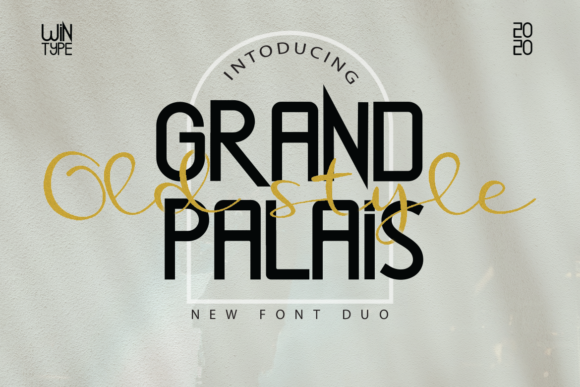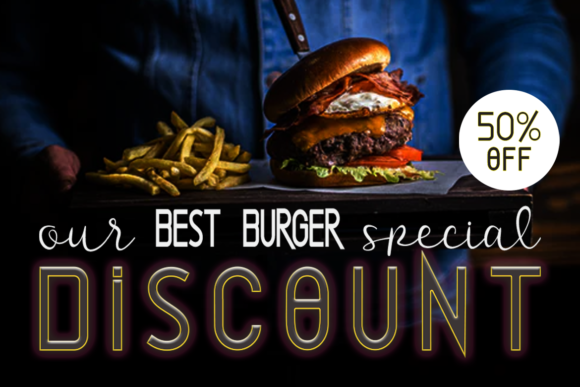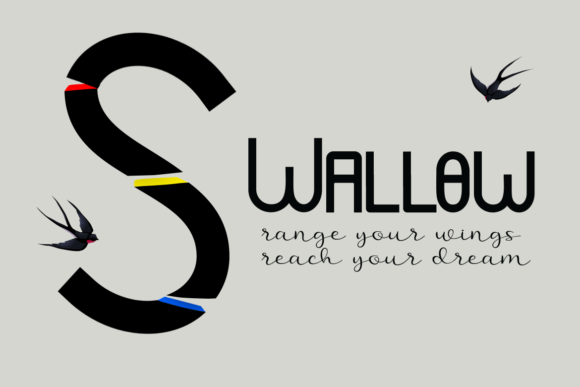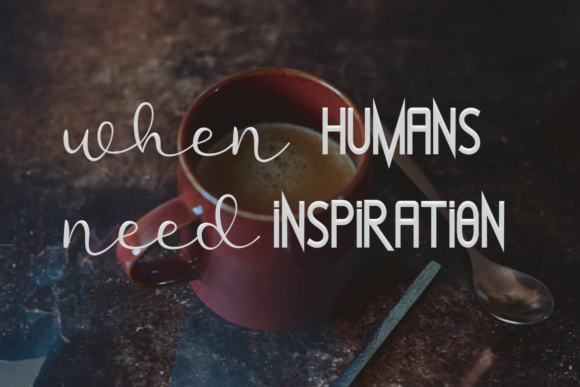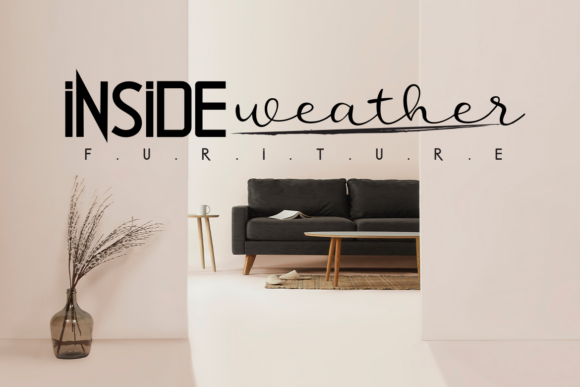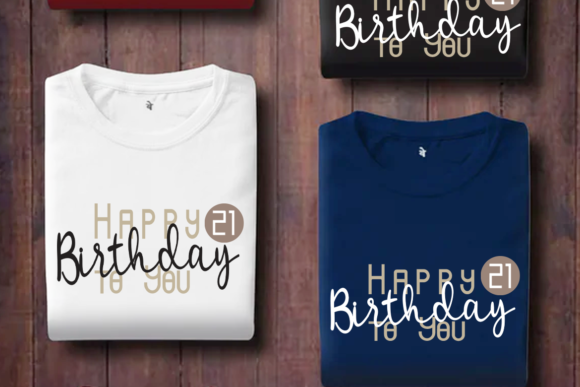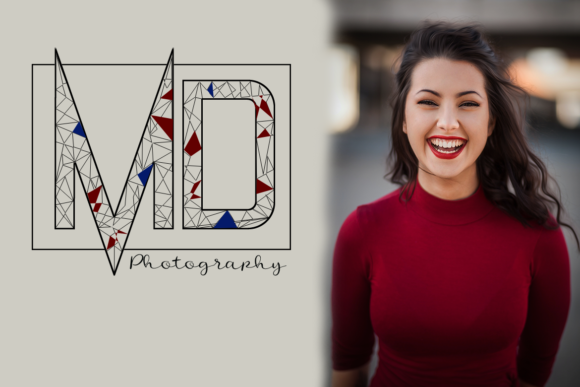
The Perfect Blend of Elegance and Sophistication
You’re browsing through a font library, and suddenly, you stumble upon the perfect combination – a modern script that adds a touch of whimsy and a fancy display font that exudes luxury. This serendipitous moment sparks an idea, and you know exactly how you want to bring it to life. You envision a beautiful invitation, a stunning logo, or a captivating advertisement that showcases your creativity.
That’s where Grand Palais Old Style Font comes in – a harmonious pairing of elegance and sophistication. Designed to add a touch of refinement to your projects, this font is the perfect tool for designers who want to create visually stunning pieces. With its balanced and varied characteristics, Grand Palais Old Style Font is an invaluable asset for any designer looking to elevate their work.
- Unique Characteristics: This font features elegant, cursive lines and classic letterforms, reminiscent of traditional French typography. Its distinctive flair and subtle ornamentation evoke a sense of sophistication and refinement.
Grand Palais Old Style Font Review
When I first laid eyes on the Grand Palais Old Style Font, I was immediately drawn to its classic, elegant aesthetic ✨. The font’s vintage vibe and subtle flair for the dramatic make it perfect for projects that need a touch of sophistication. I’ve found it works particularly well for:
- Book covers and publishing materials
- High-end branding and advertising
- Formal invitations and event materials
However, I do have a few reservations about the font’s limitations ⚠️. The Grand Palais Old Style Font is not ideal for:
- Display text, as it can become quite dense and overwhelming
- Body text, as it’s a bit too ornate for everyday reading
- Web use, due to its relatively low legibility on smaller screens
Overall, I think the Grand Palais Old Style Font is a beautiful addition to any designer’s toolkit. While it may not be suitable for every project, it’s sure to impress when used in the right context. With a little creative guidance, this font has the potential to elevate even the most mundane designs to new heights.
For a vintage look, pair the font with distressed textures and earthy colors.
For a unique look, experiment with layer blending modes and textures.
For a classic look, pair the font with simple backgrounds and minimal graphics.
The Grand Palais Old Style Font is ideal for:
- Creating vintage-inspired posters and advertisements.
- Designing classic book covers and editorial layouts.
- Adding a touch of elegance to wedding invitations and stationery.
Remember to experiment and have fun with the font to achieve unique and creative results!